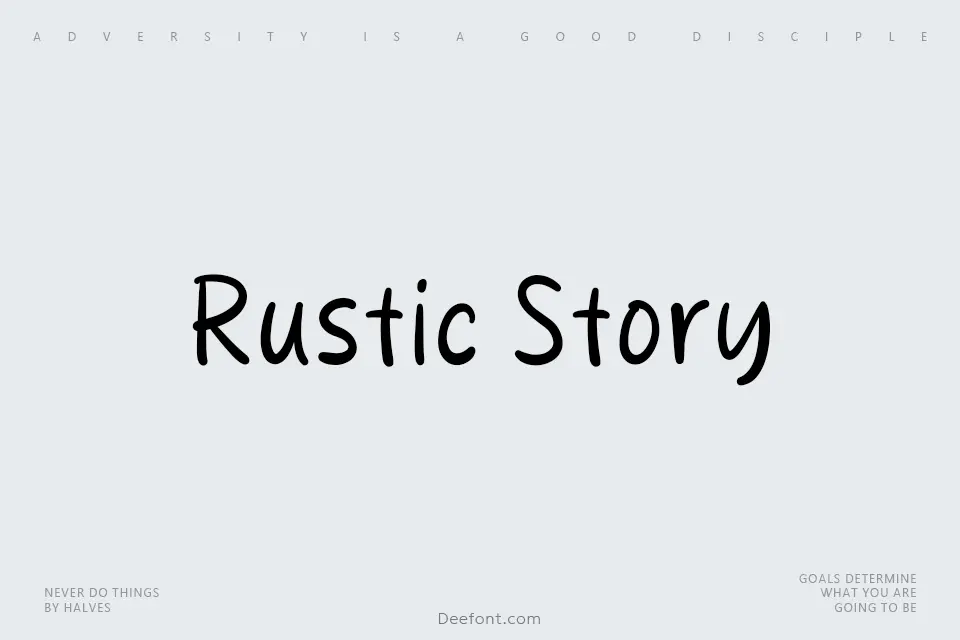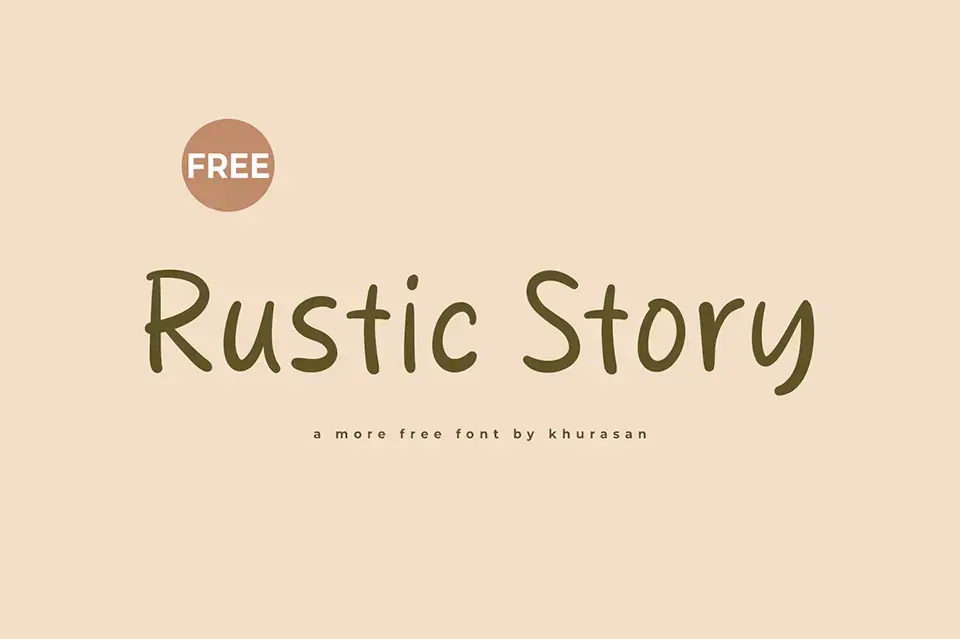
Rustic Story Font
Rustic Story is a captivating handwritten font by Khurasan that embodies rugged charm and organic beauty. With its flowing, textured brush strokes and distinct imperfections, this typeface creates an authentic handcrafted feel. It is perfectly suited for rustic wedding invitations, artisanal branding, nature-inspired posters, and creative product packaging.